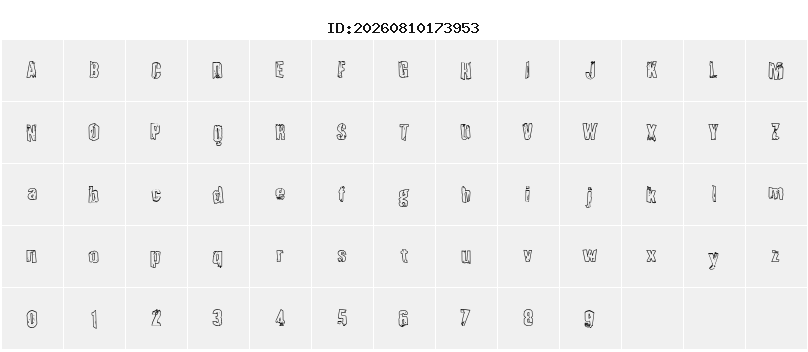
Quarrystone Outline Preview
• Font Name: Quarrystone Outline
About Quarrystone Outline.ttf
Quarrystone Outline.ttf is a modern, elegant sans-serif font designed for ultimate readability and visual harmony. Perfect for branding, headlines, web design, and print materials.